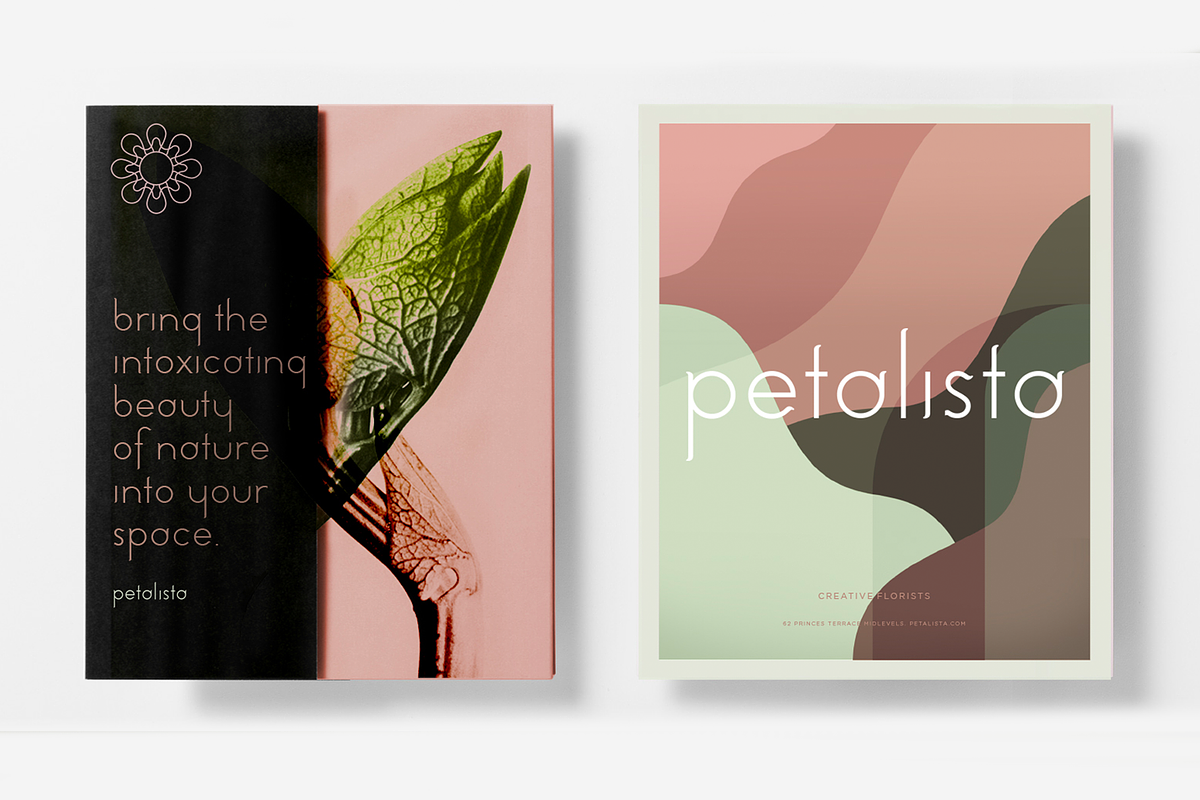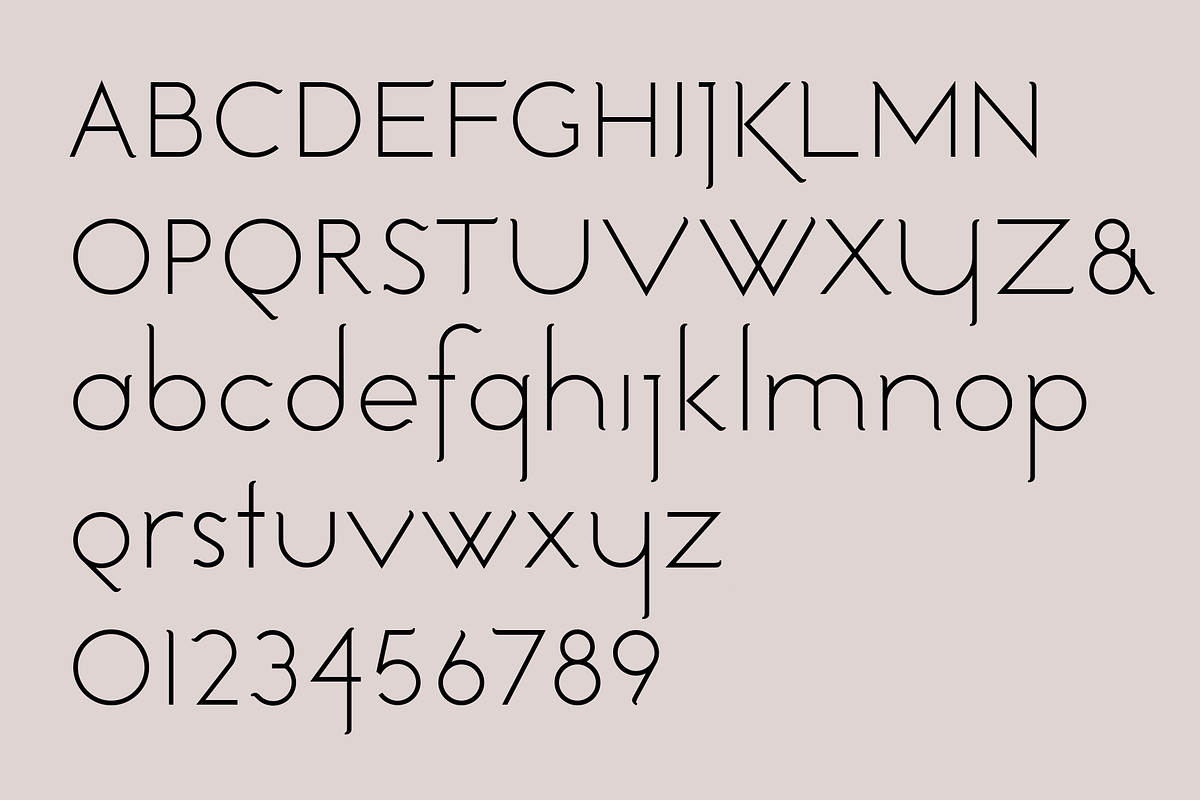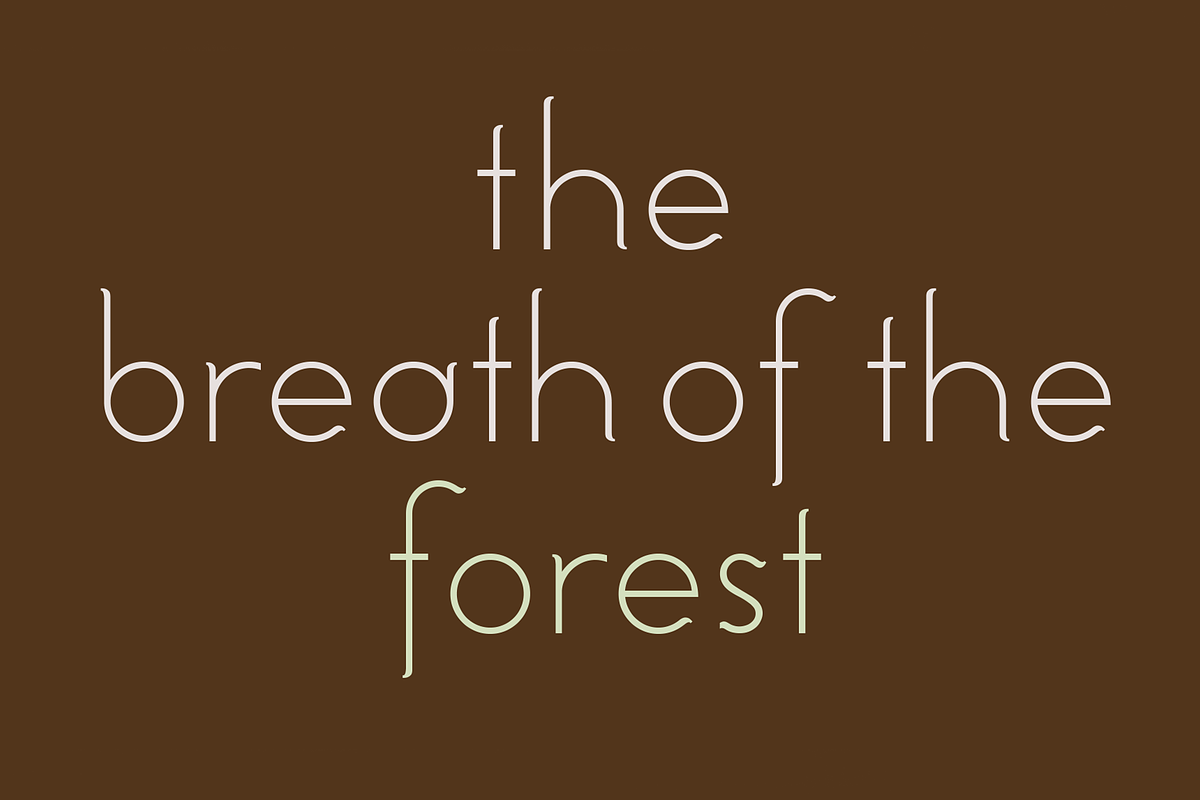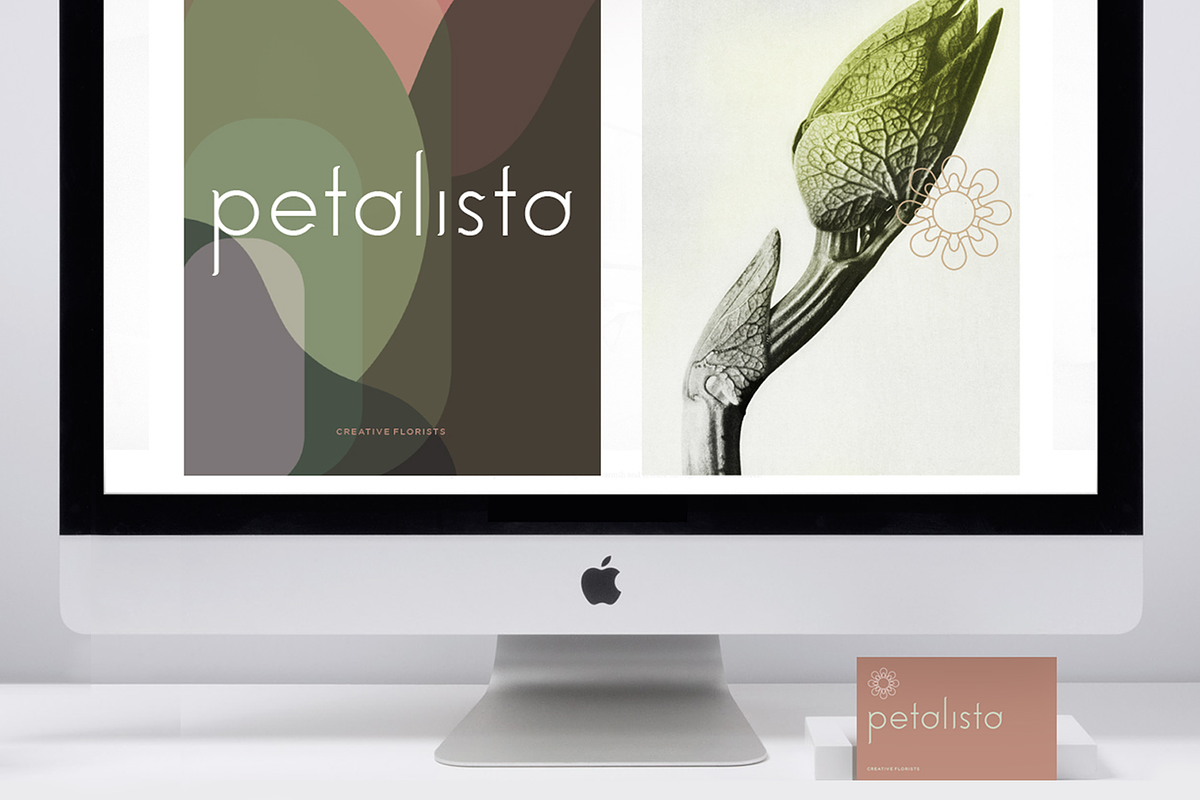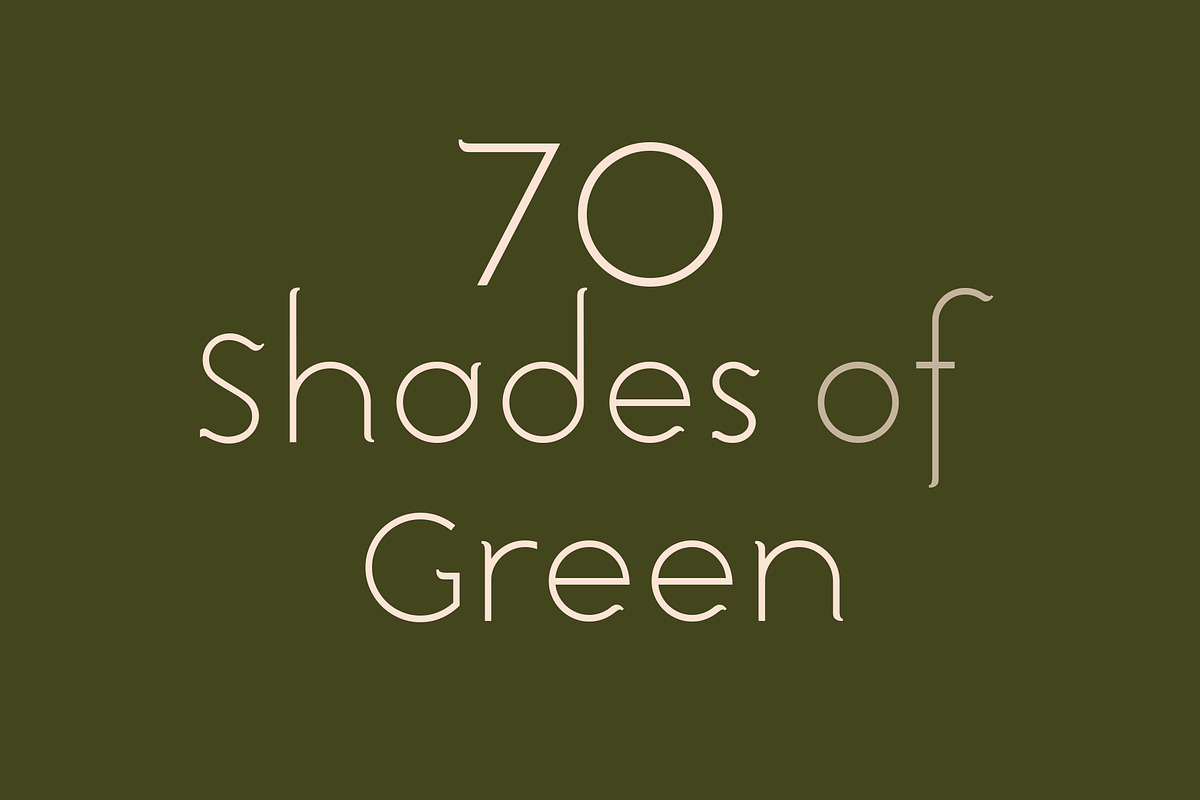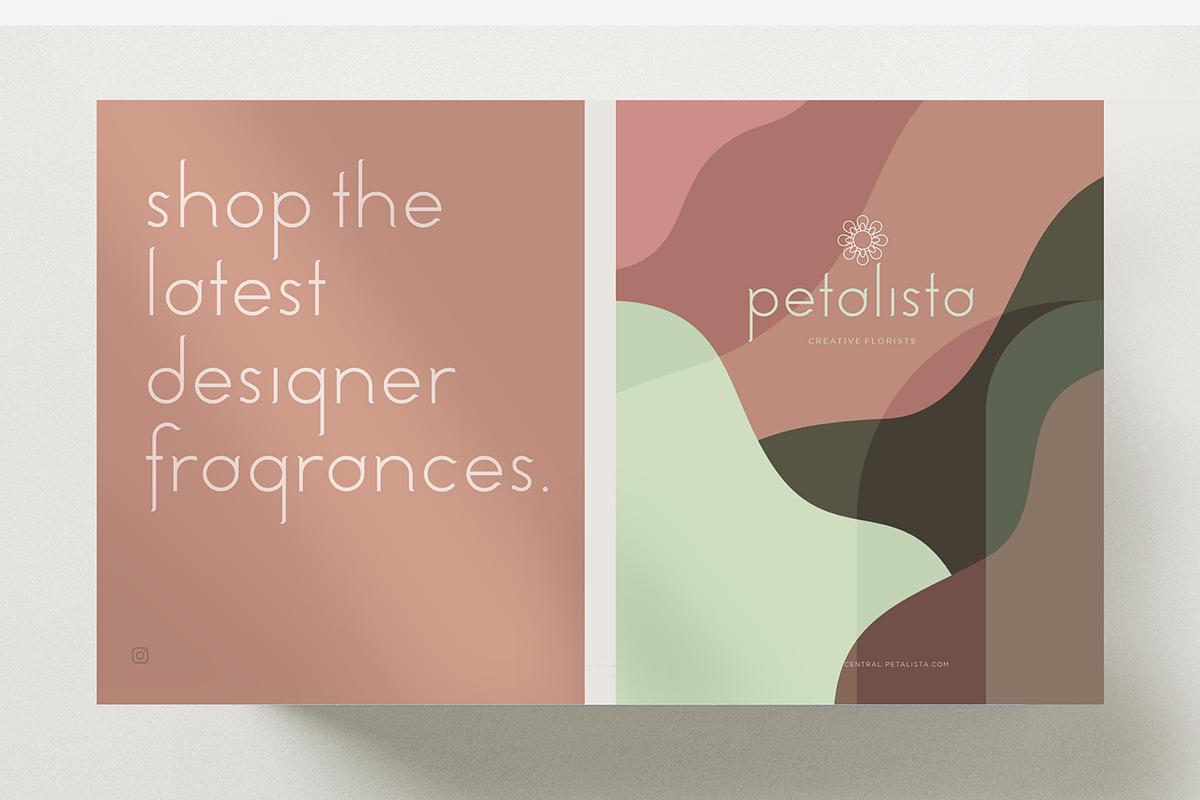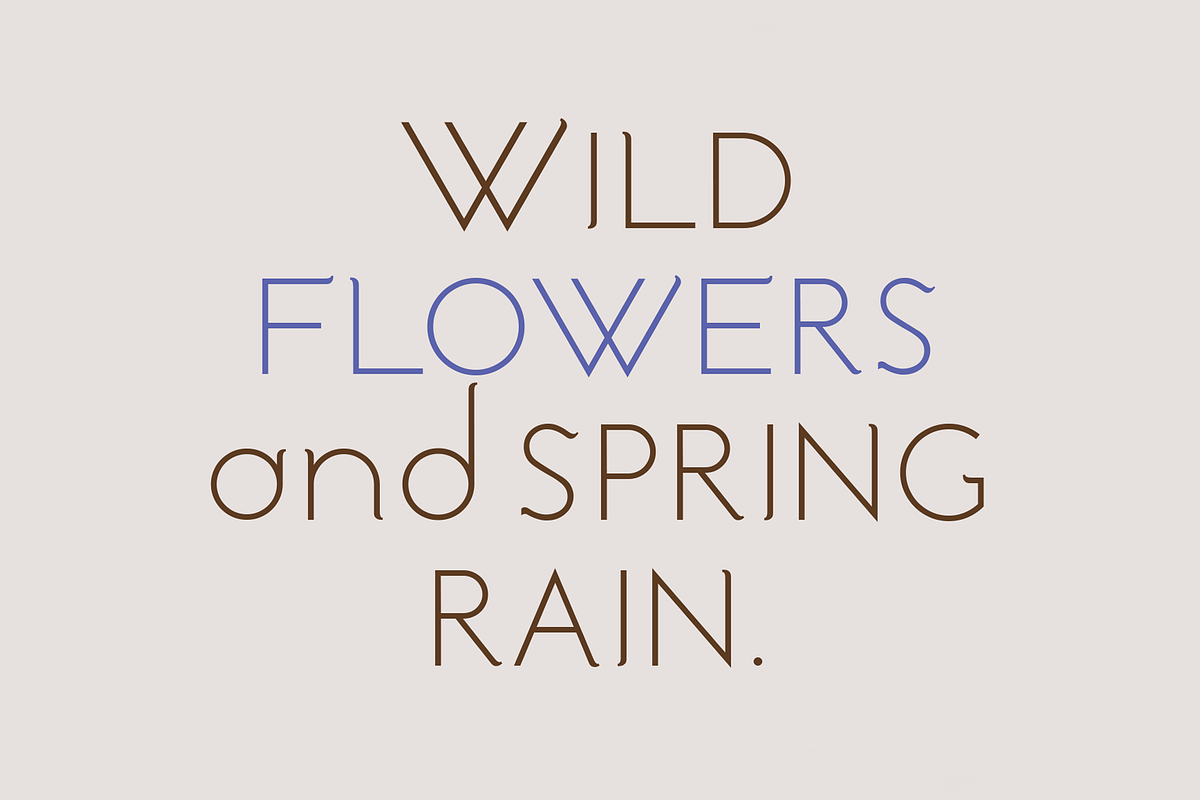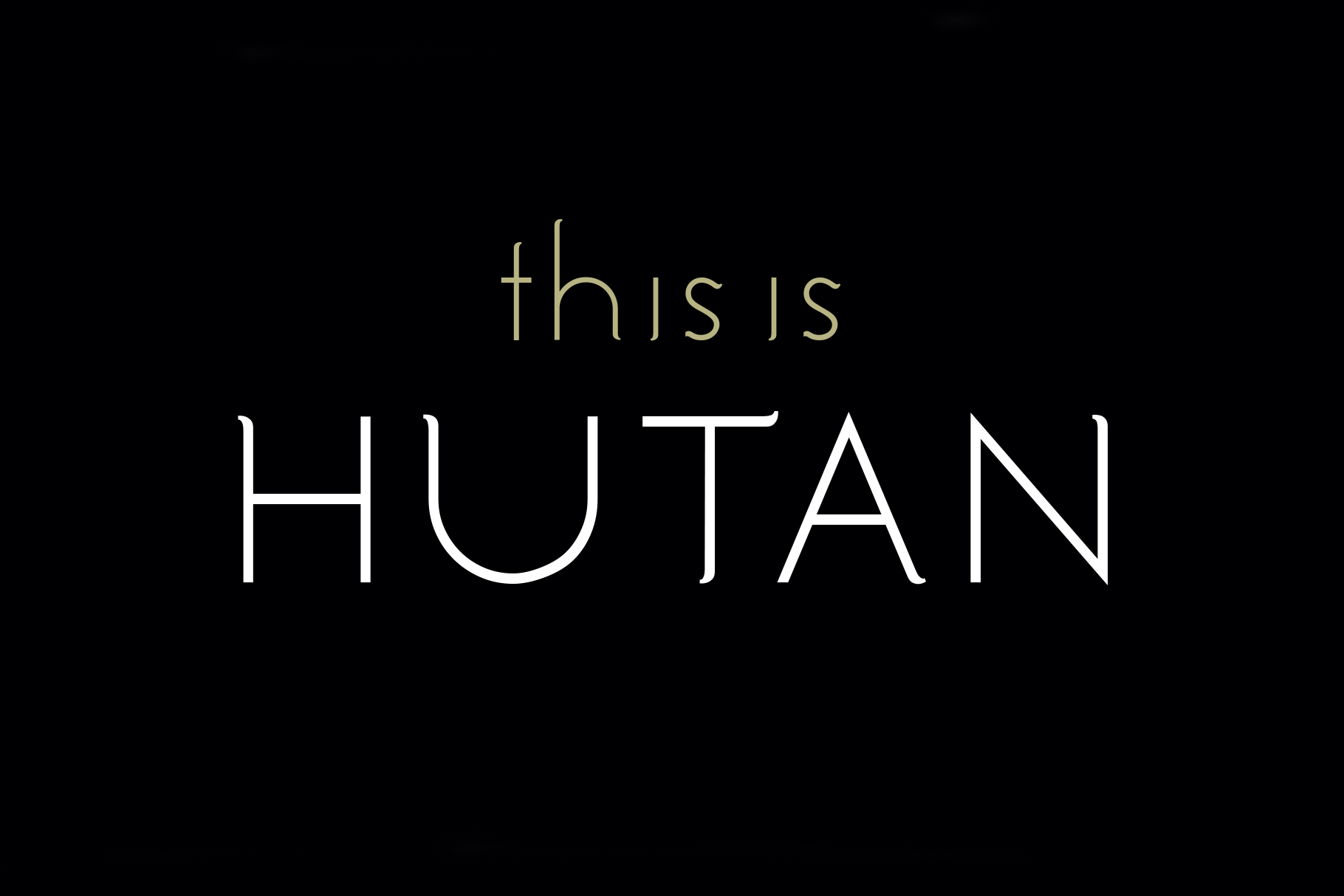
Hutan. Beautiful modern font.
Hutan, meaning 'mountain' in Malay, is a stunning new 'crossover font' for designers from LostandFoundry. This typeface has the look and feel of a sleek, modern, sans serif font, but with beautiful, 'serif-like' touches inspired by the tropical forest near where I live.
Hutan will bring a unique flowing quality to your design projects - in headlines, titles, logos, text, packaging design and even t-shirt designs. And online on your websites, blogs, vlog titles, Youtube creator titles and social media post titles.
Use Hutan whenever you need a contemporary, clean-lined font, yet one that is high-class and with an elegant design aesthetic. Hutan comes in 2 weights and supports French, German and other European languages.